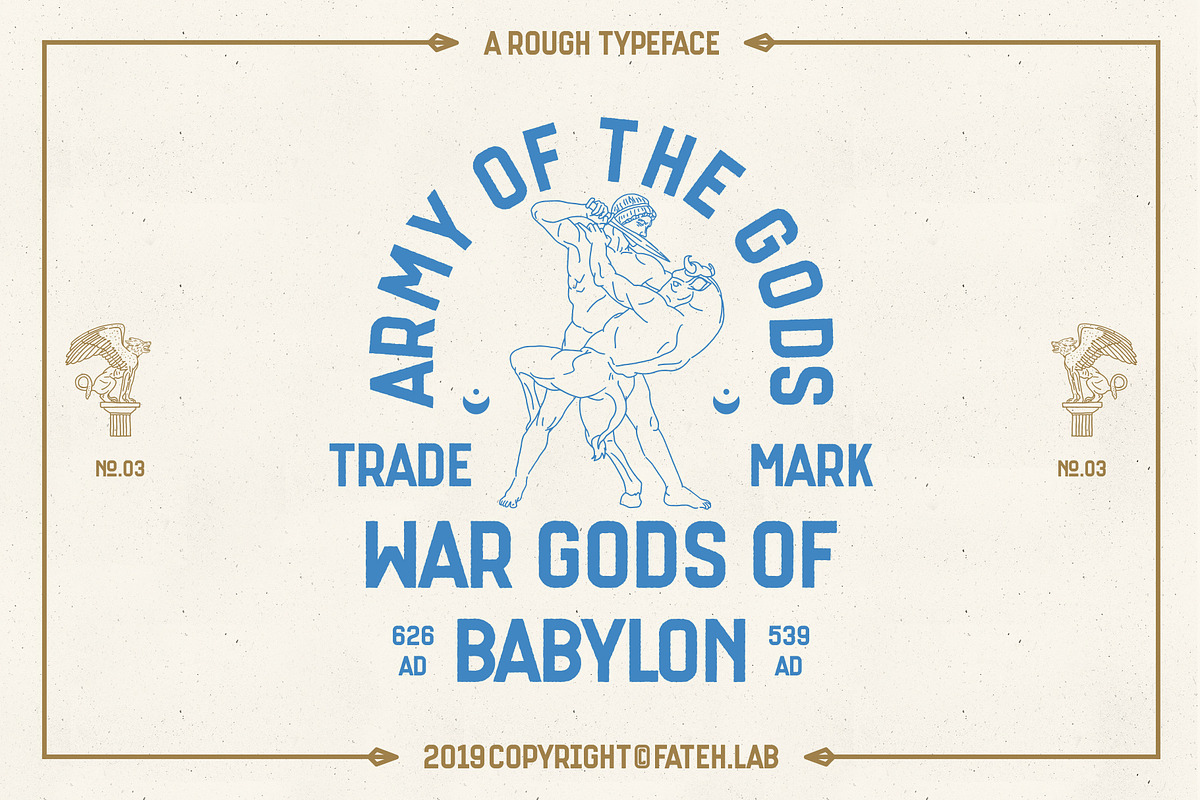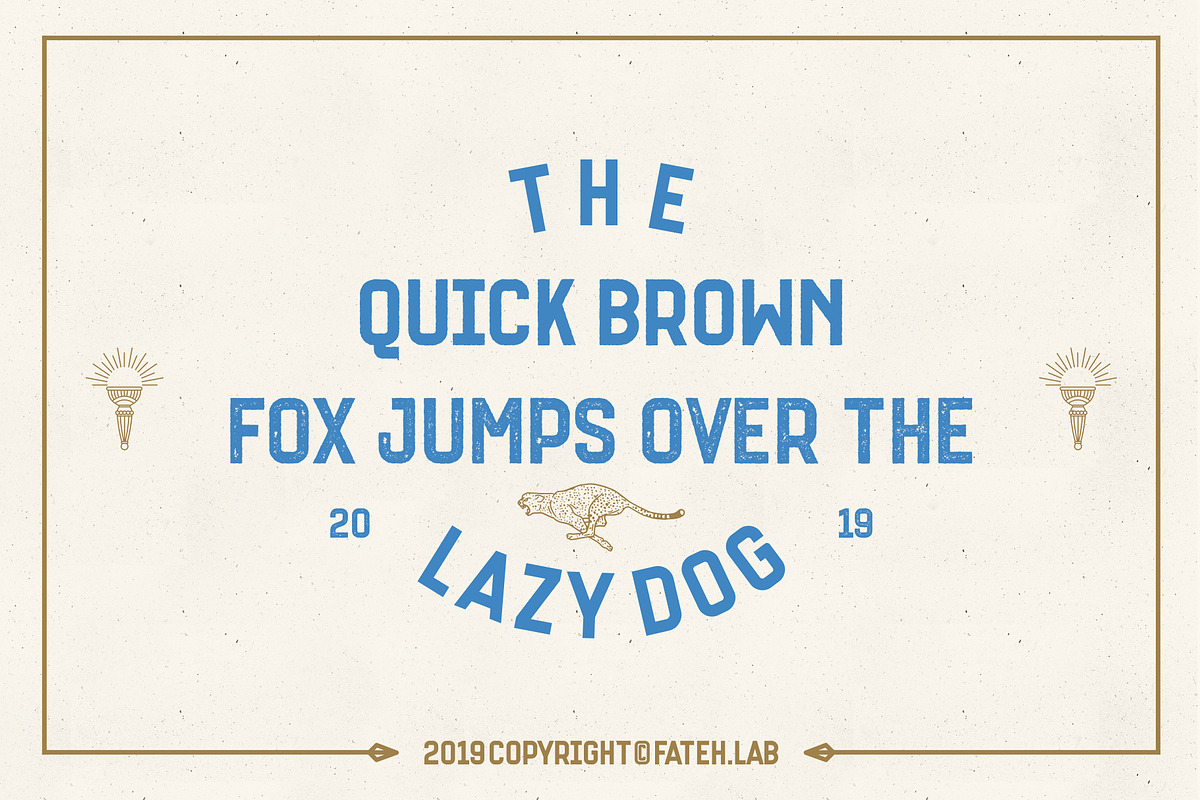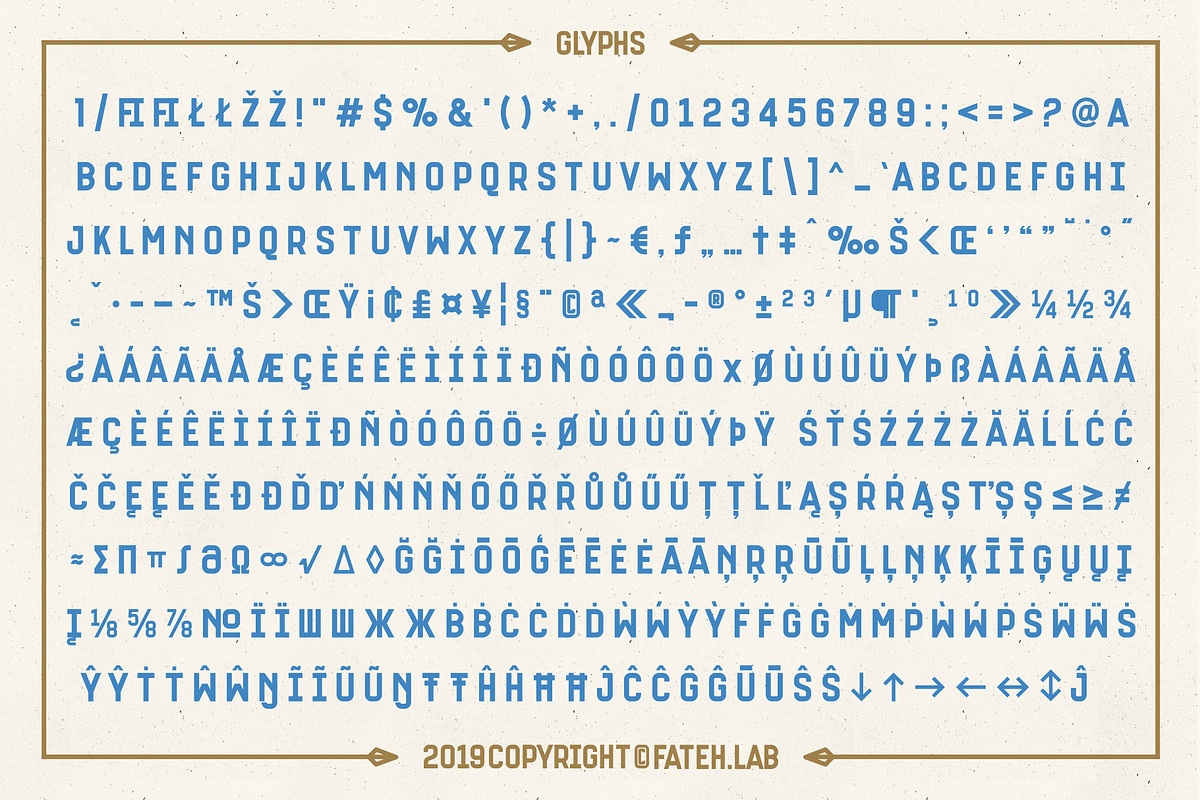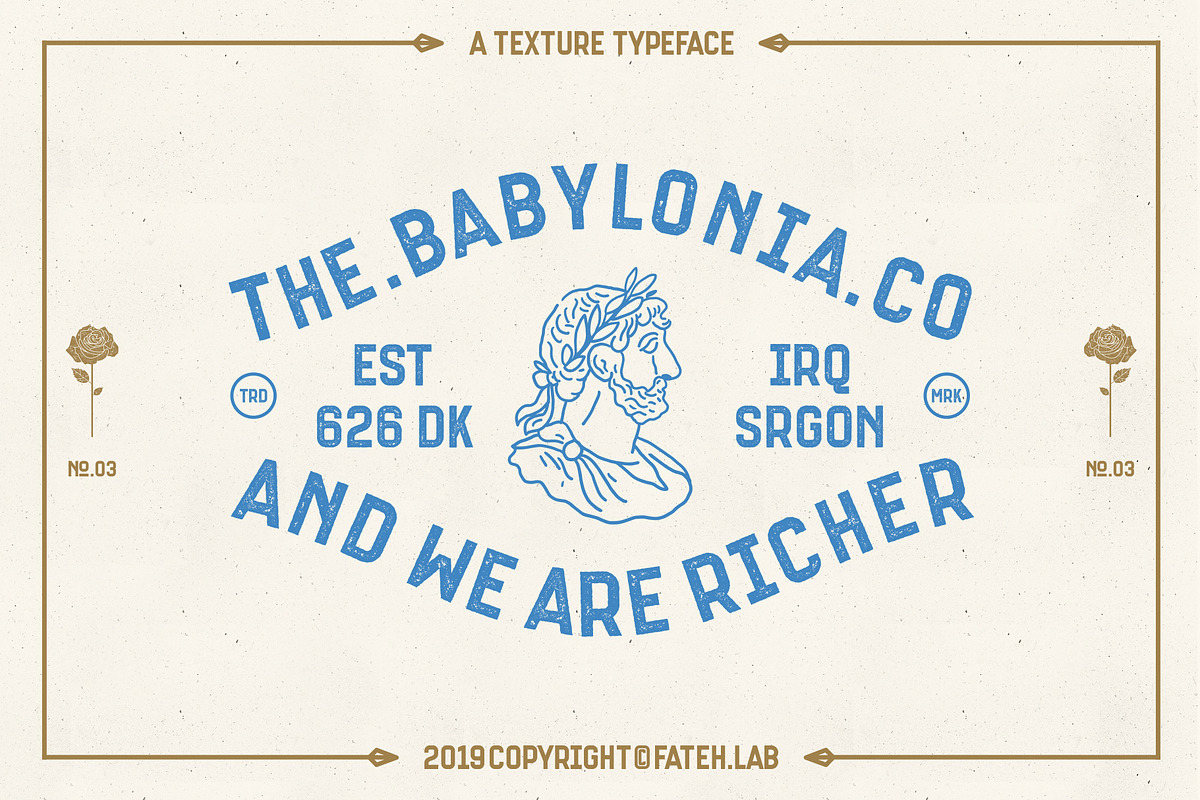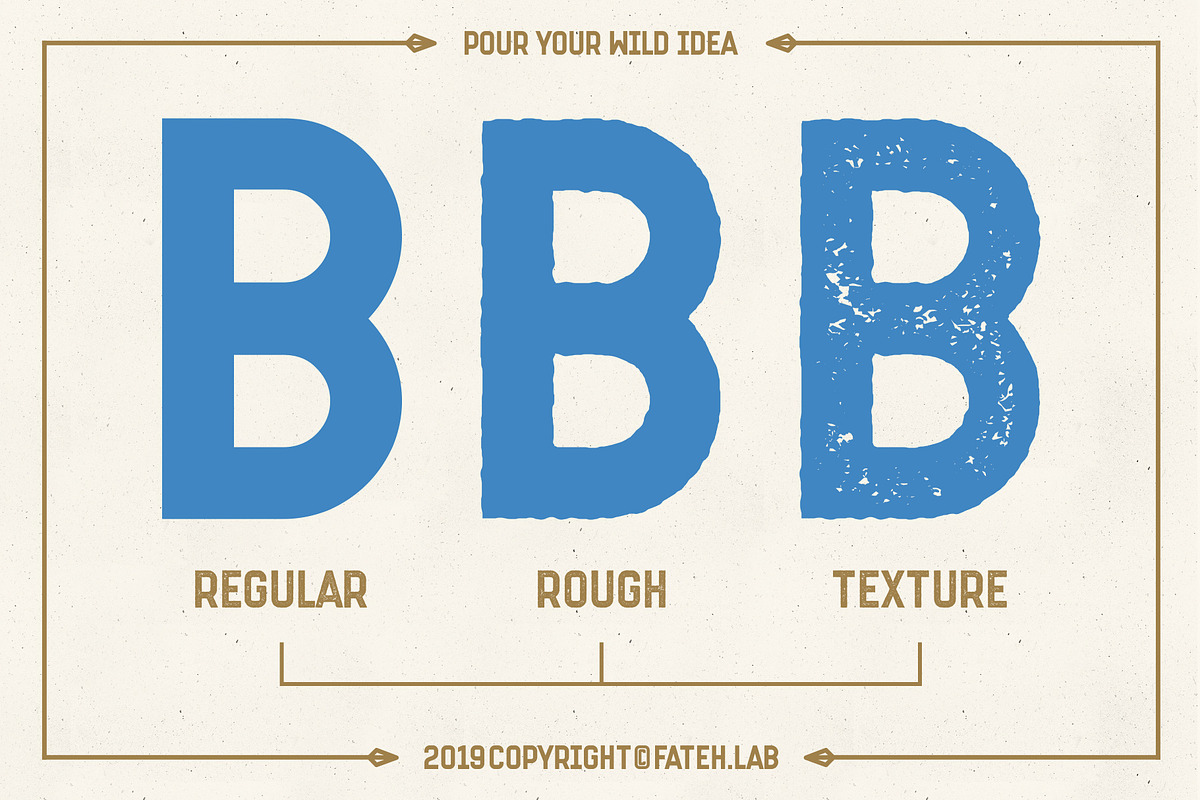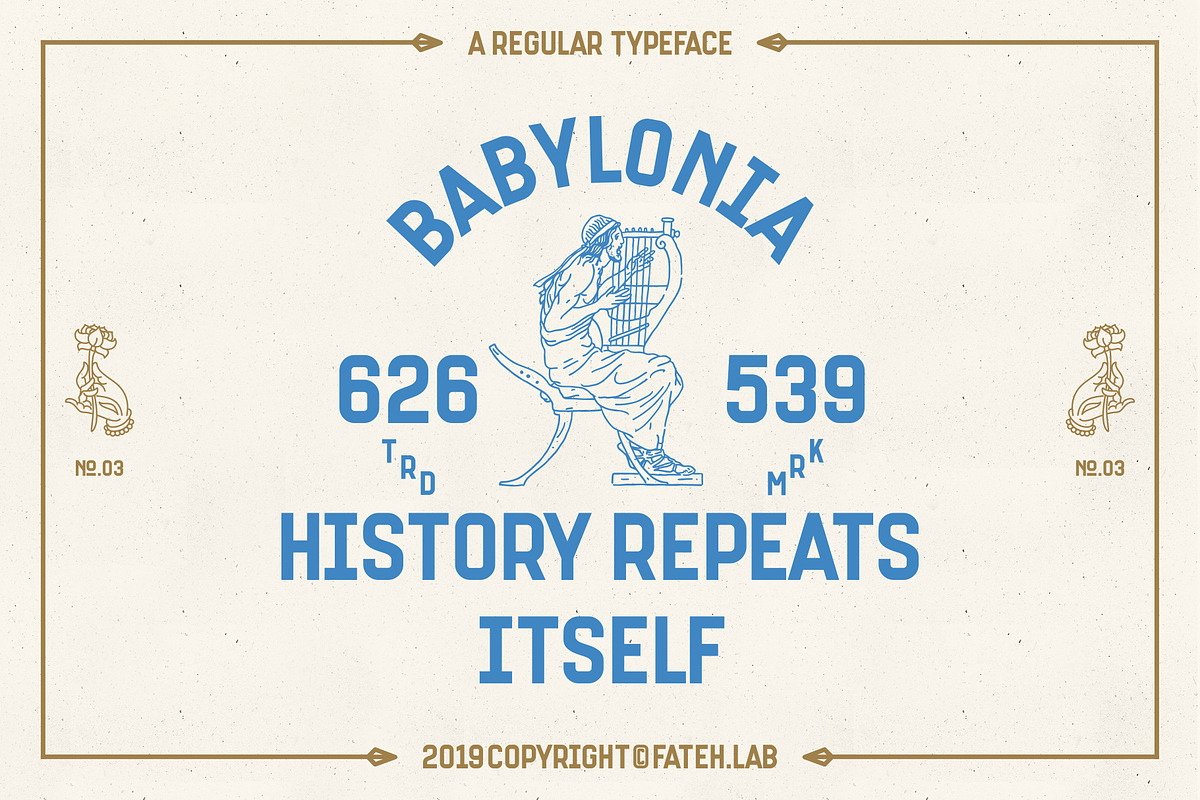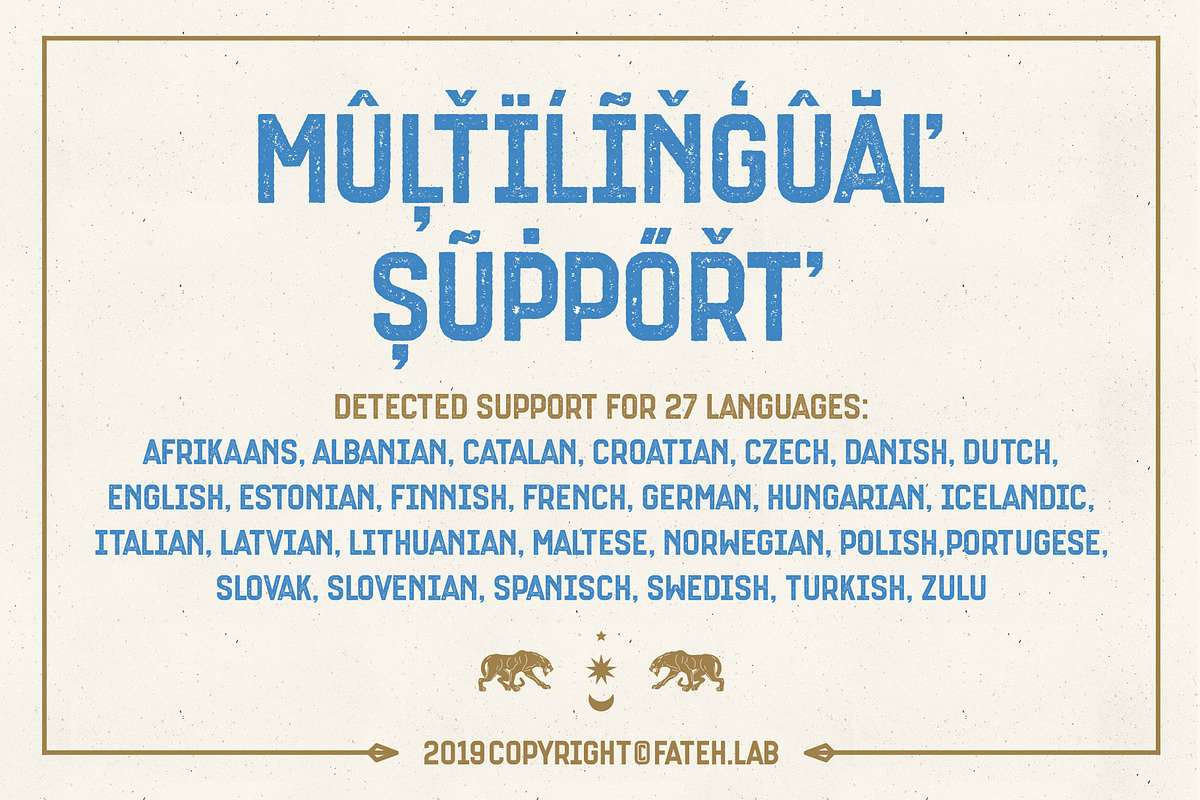
Babylonia - Vintage Font
Babylonia is a bold and strong font, with a classic style making Babylonia is a font that meets your needs to create extraordinary designs, is perfect for clothing designs with bold and confident appearance, branding, posters,. and also suitable for editorial / web titles. by adding some very detailed illustrations, of course it is very helpful to add elements to the design that you will create.
Multilingual Support added